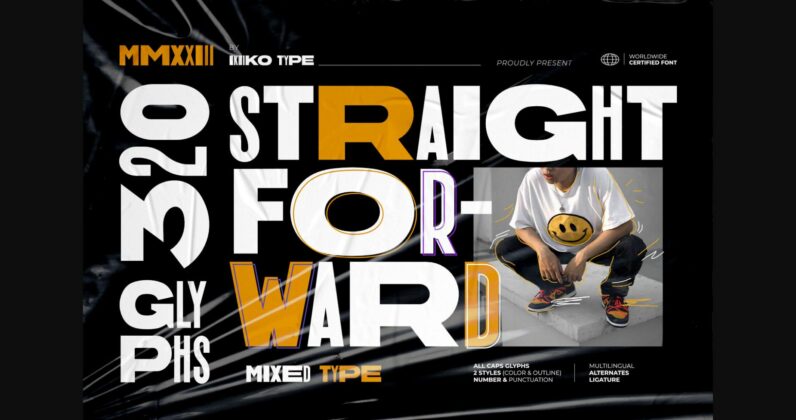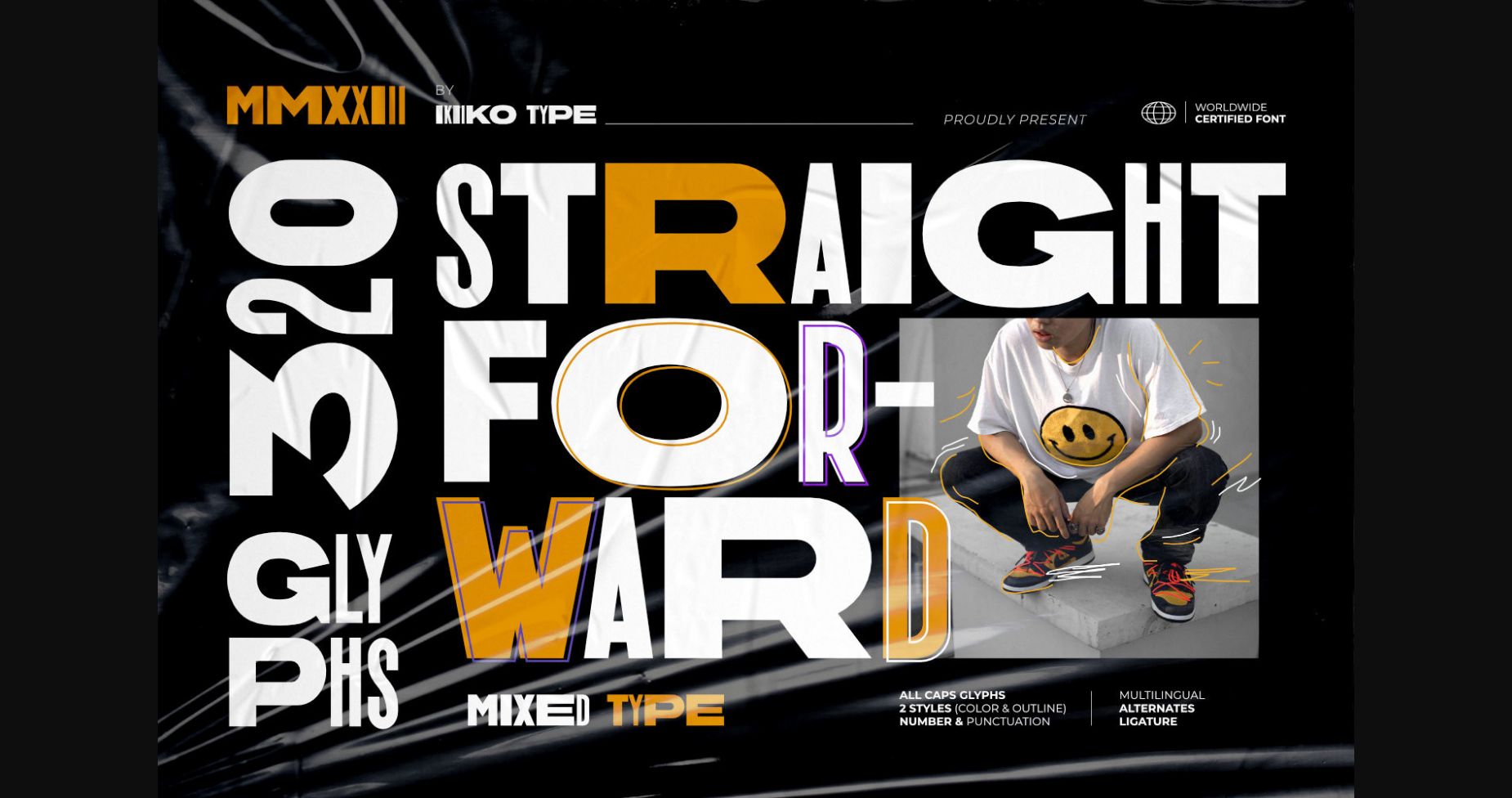
About Straight Forward Font
With a contemporary, unbalanced design, Straight Forward font adds an edge to any project. Perfect for creating bold headlines, captivating logos, and eye-catching graphics, it’s an excellent choice for those looking for a unique touch in their designs. This font is PUA encoded which means you can access all glyphs and swashes effortlessly!